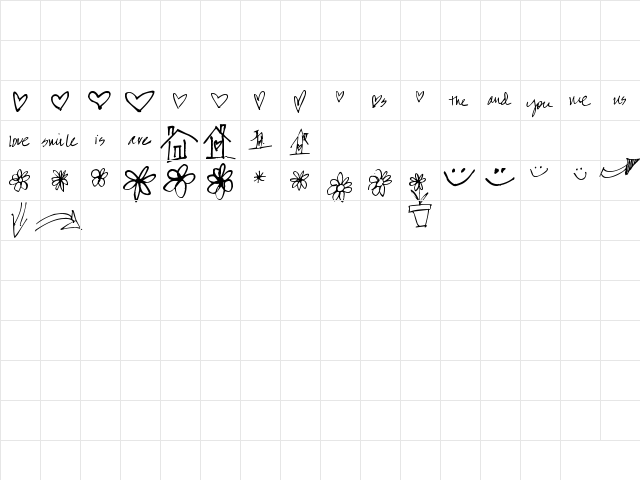
Pea Karen's Doodles Regular Font Preview
Pea Karen's Doodles Regular
Design Context for Pea Karen's Doodles Typeface
Pea Karen's Doodles is a composed and adaptable typeface that performs quietly and consistently across a wide range of design contexts.